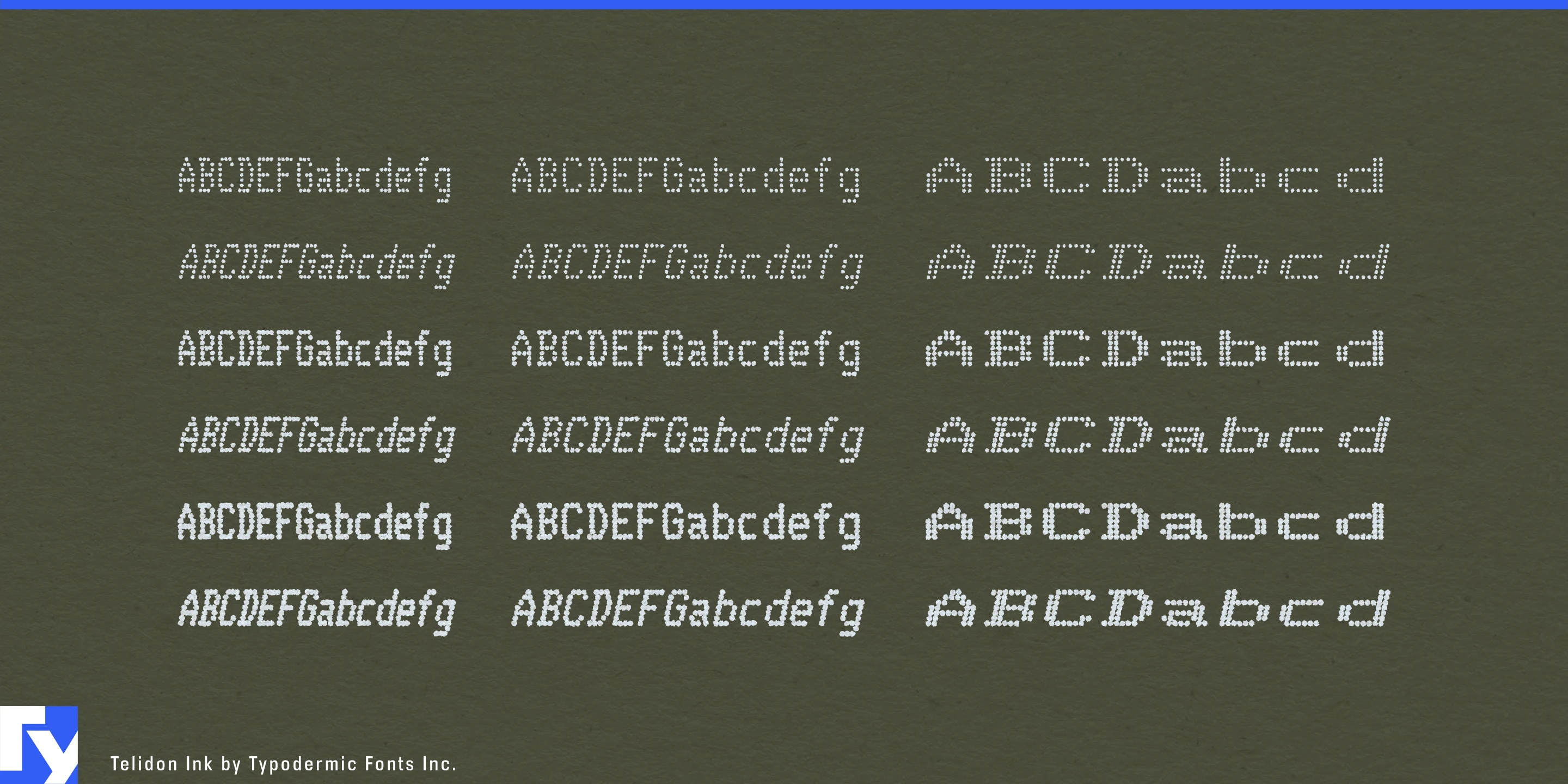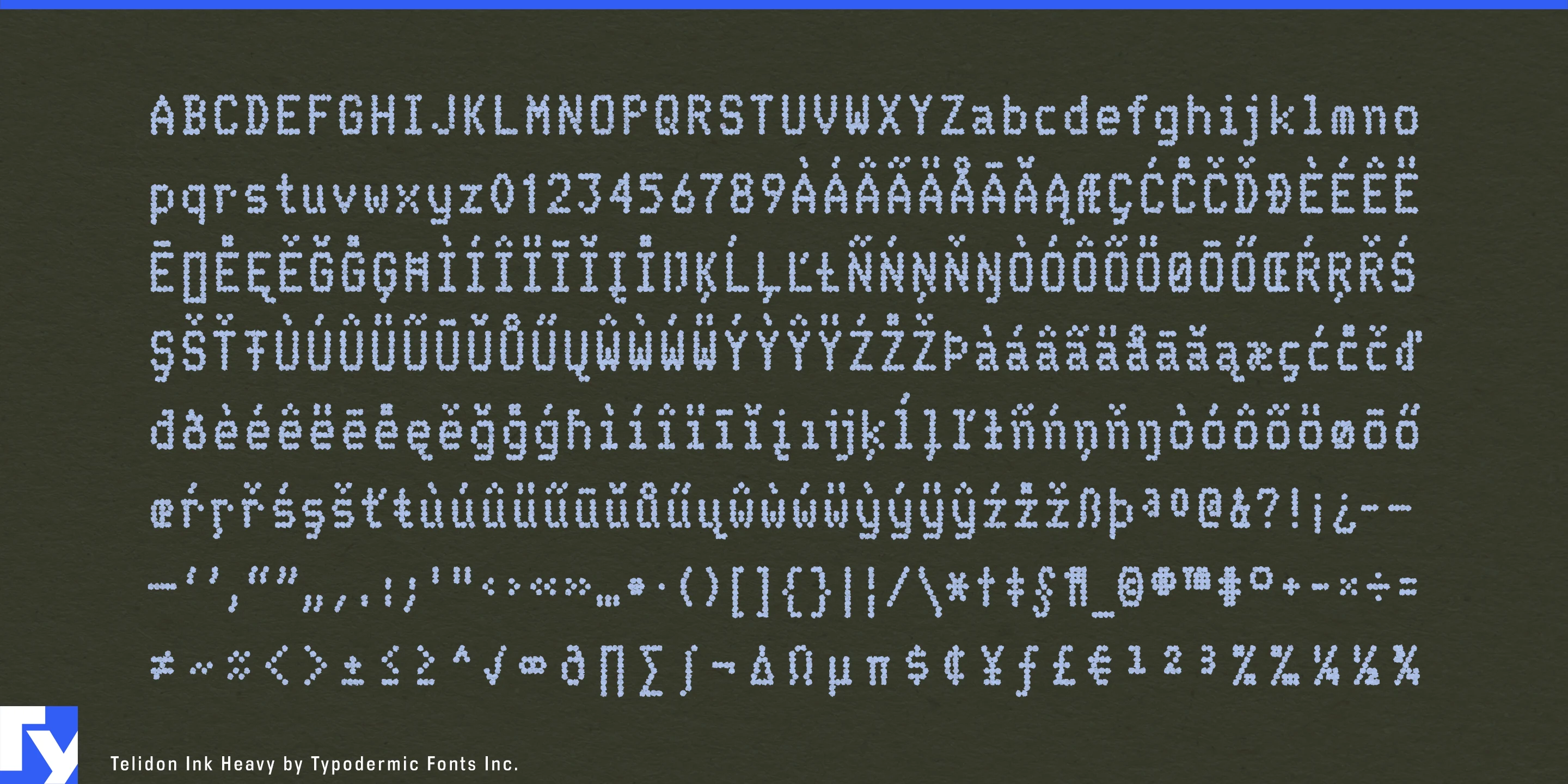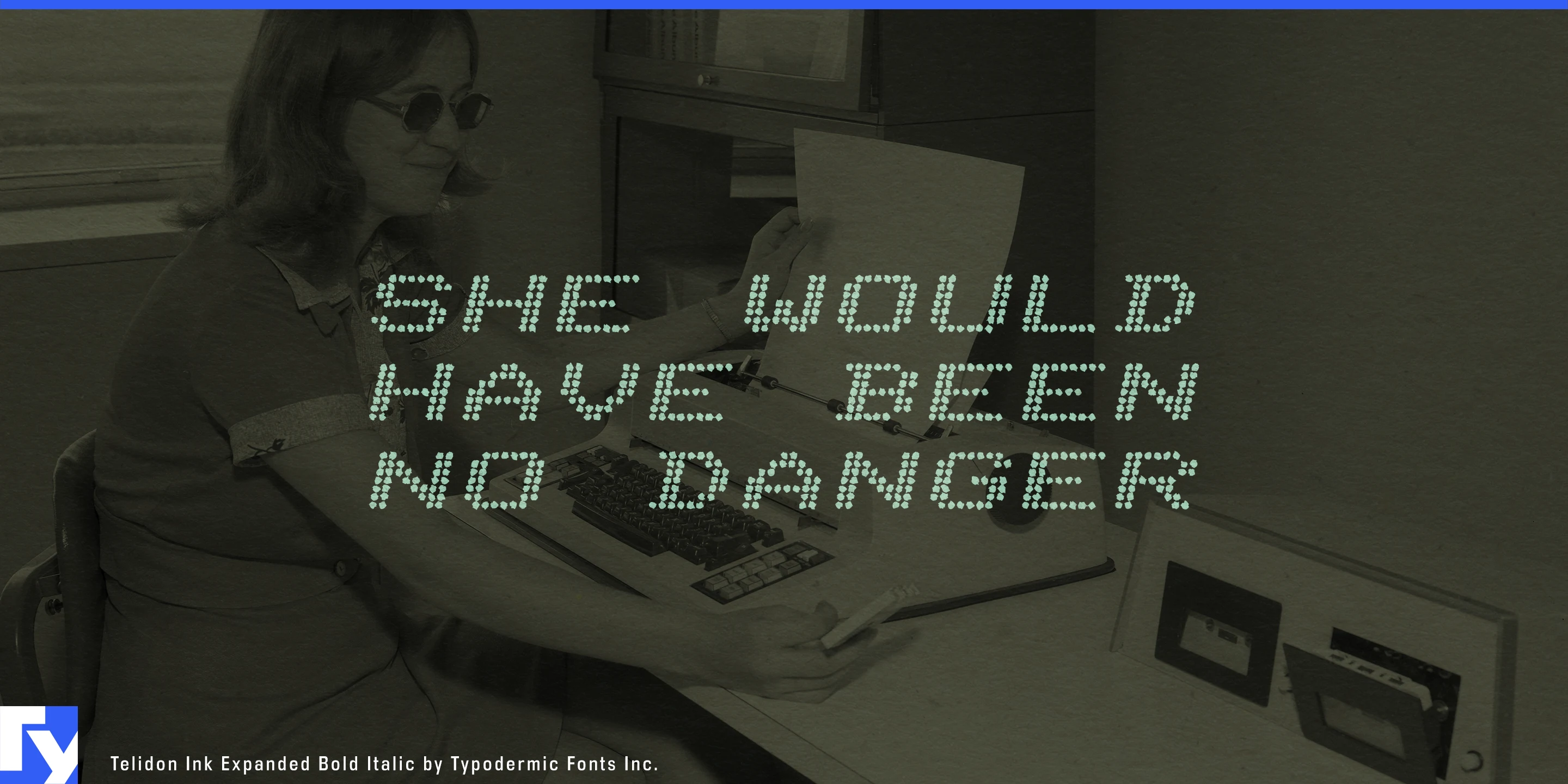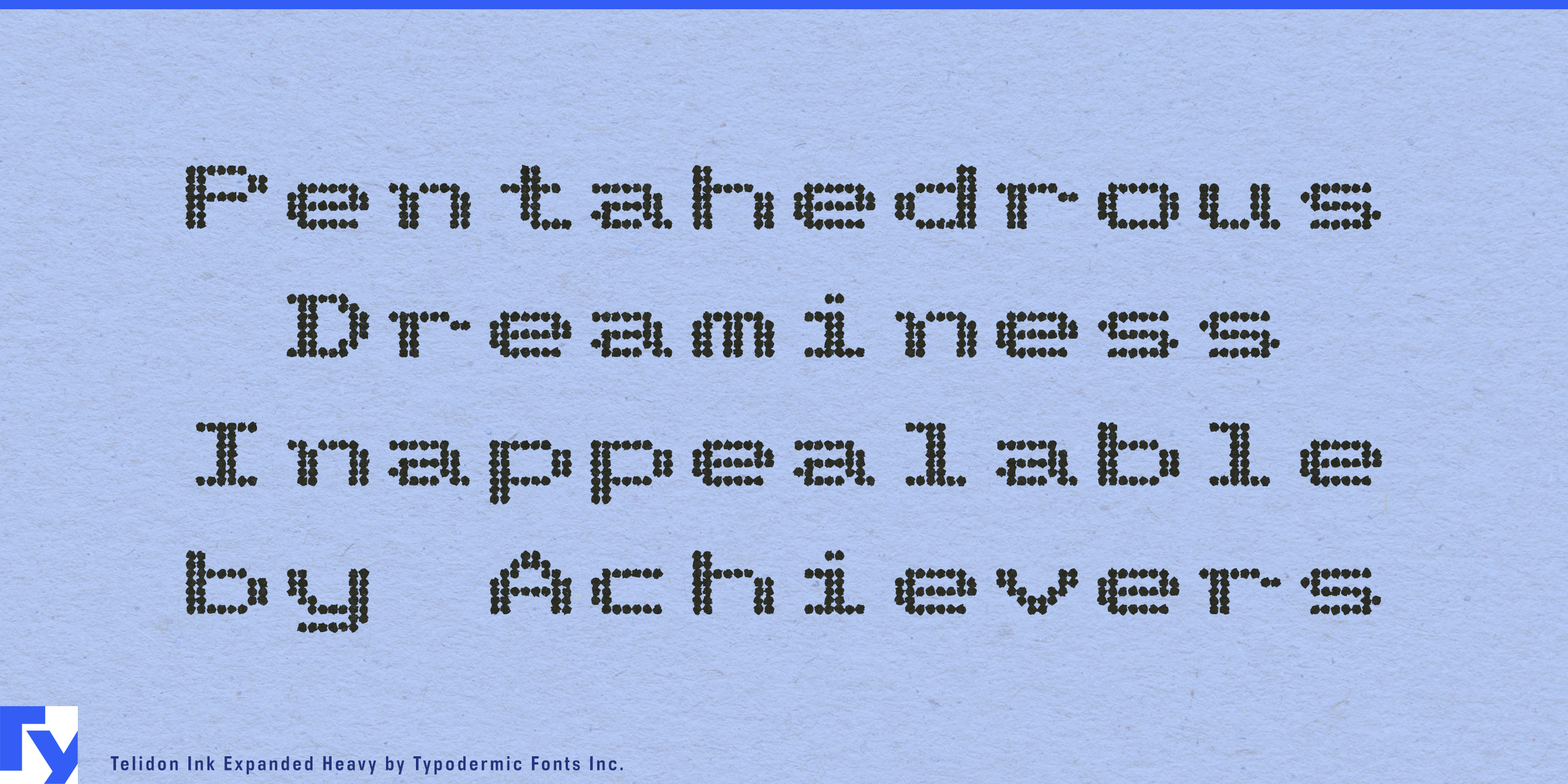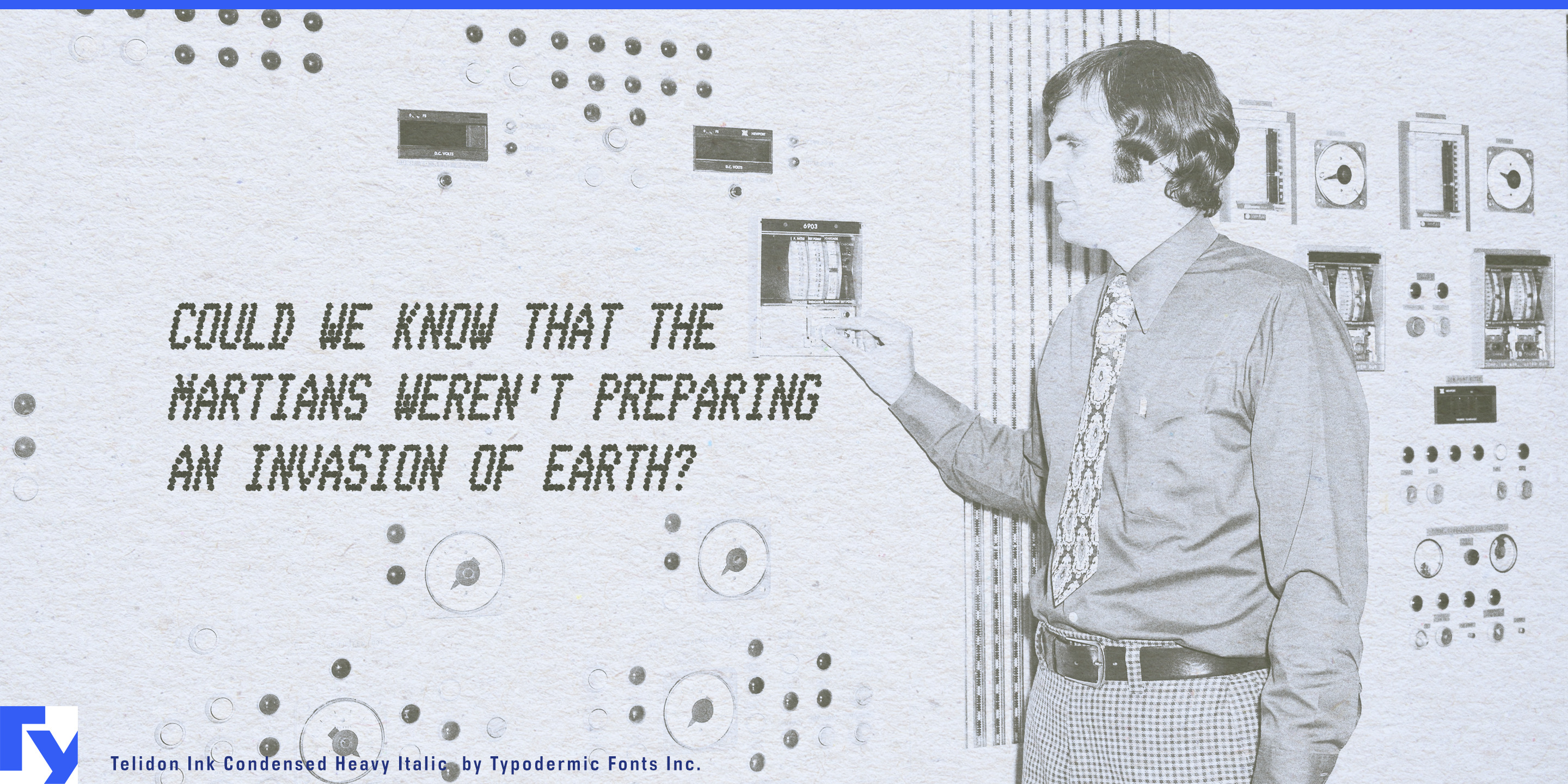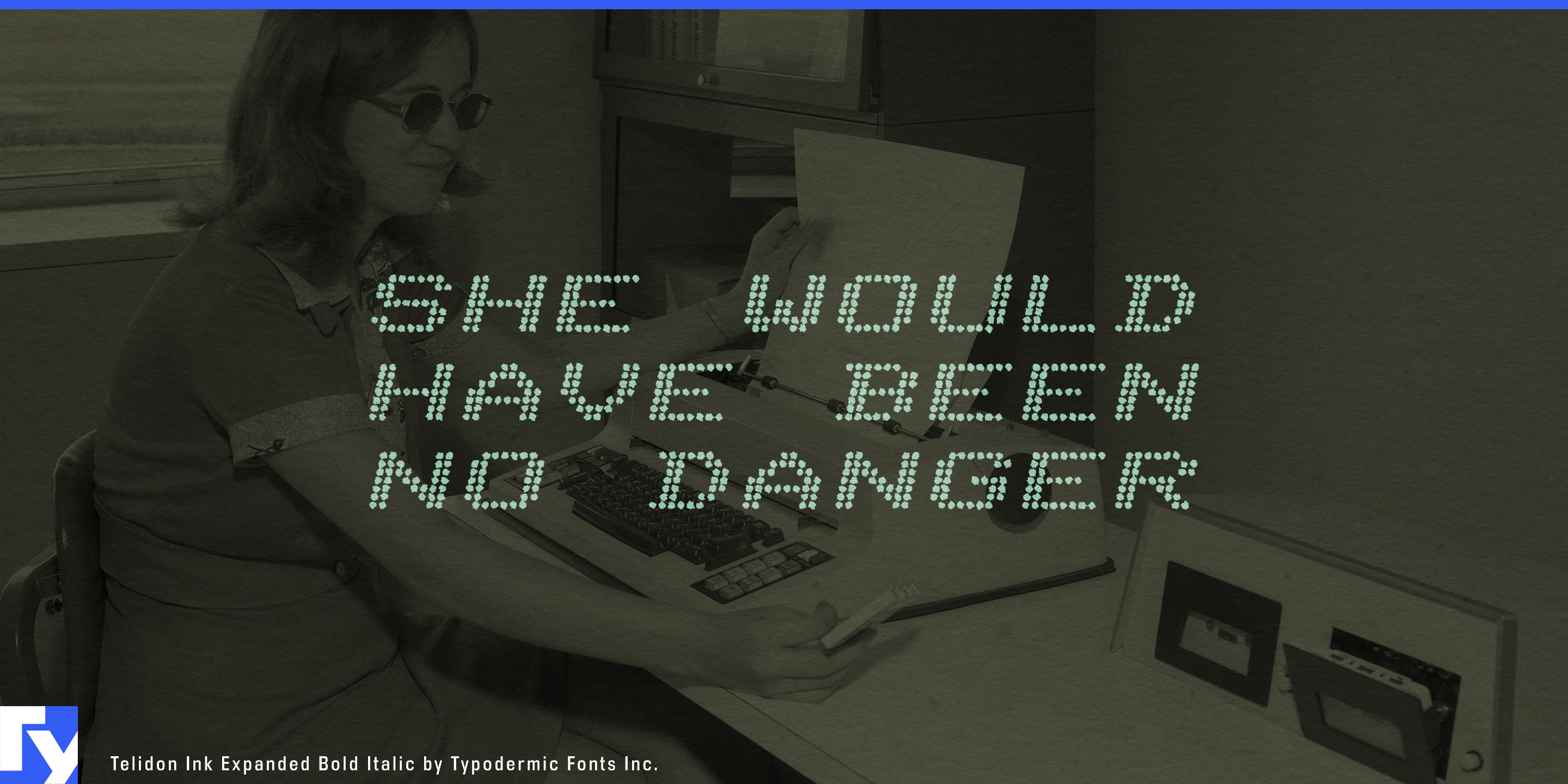
Telidon Ink
Telidon Ink begins where Telidon leaves off: at the paper. It preserves the same monospaced grid and impact-printer construction, but replaces clean circular cells with irregular impressions shaped by ribbon, paper, and mechanical contact. The wear occurs within each pin strike rather than through a distressed texture spread across the finished letters.
Individual dots have chipped edges, uneven fill, and slight variations in shape. Expanded styles retain their doubled horizontal impressions; heavier settings accumulate additional dots, while the italics preserve Telidon’s half-unit pin offsets. The printed surface varies, but the underlying grid remains stable. This keeps Telidon Ink readable while giving every line the physical character of impact-printed output.
Production designers can use it for transaction logs, laboratory reports, payroll records, inventory sheets, diagnostic results, shipping manifests, and other documents generated by aging office or industrial equipment. In film and television props, it suggests paper that has passed through a machine, been filed, handled, copied, and eventually recovered.
Telidon Ink also suits exhibitions and publications about computing, transportation, banking, manufacturing, and administrative history. Corporate archives can use it to evoke early data processing without reproducing a particular historical document. In editorial layouts, it can distinguish excerpts from technical correspondence, investigative material, or recovered records.
Contemporary packaging for synthesizers, recording equipment, electronic components, and industrial products can use Telidon Ink to make specifications and model numbers feel mechanically produced. Electronic and industrial music graphics gain a printed texture that remains systematic rather than merely rough.
Telidon presents the printhead’s instructions with every dot in place. Telidon Ink records what happened when those instructions encountered a worn ribbon, imperfect paper, and repeated handling.